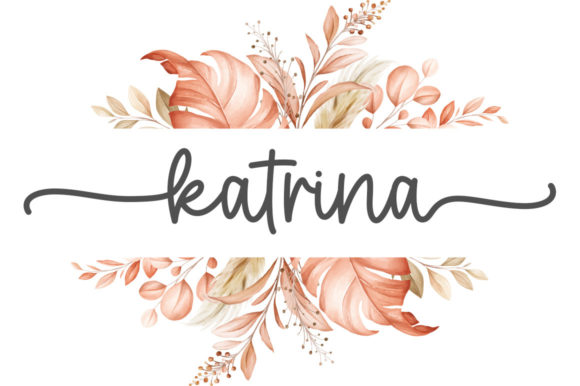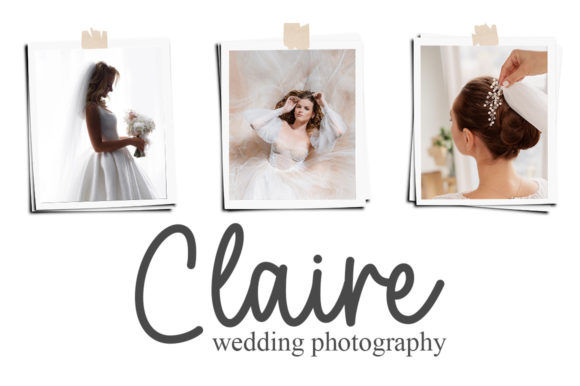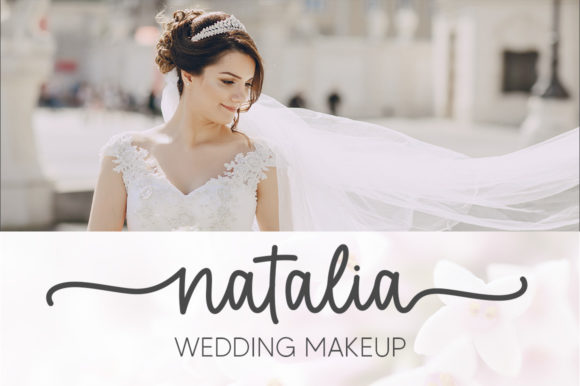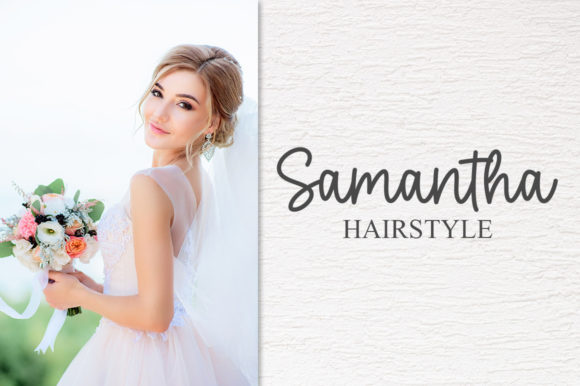
Katrina Font: Elegant Handwritten Script for Wedding Invitations & Branding
About the Katrina Font
Explore the possibilities with Katrina Font, a font that offers both beauty and functionality. Katrina is an elegant handwritten font. Dainty and joyful, this font will be ideal for writing wedding invitations, cards or any other design that may need a romantic, personalized touch! Katrina is PUA encoded which means you can access all of the glyphs and swashes with ease!
Katrina’s delicate nature makes it perfect for projects requiring a touch of romanticism. It excels in wedding stationery, branding for boutiques, or on short, impactful quotes within larger designs. However, its script style and thin strokes make it unsuitable for body text or UI elements where readability is paramount. Avoid using it for large blocks of text.
Pairing Katrina with a clean sans-serif like Lato or a classic serif such as Garamond provides excellent contrast and visual balance. For a more playful feel, a slightly rounded geometric sans-serif could work well. Avoid pairing it with other highly decorative scripts, as this could create visual clutter.
The overall personality of Katrina is undeniably elegant and joyful, conveying a sense of warmth and personal connection. Its delicate forms suggest sophistication and femininity, making it a strong choice for brands focused on luxury, handcrafted goods, or special events.
Katrina Font Usage Examples
Katrina Font Example